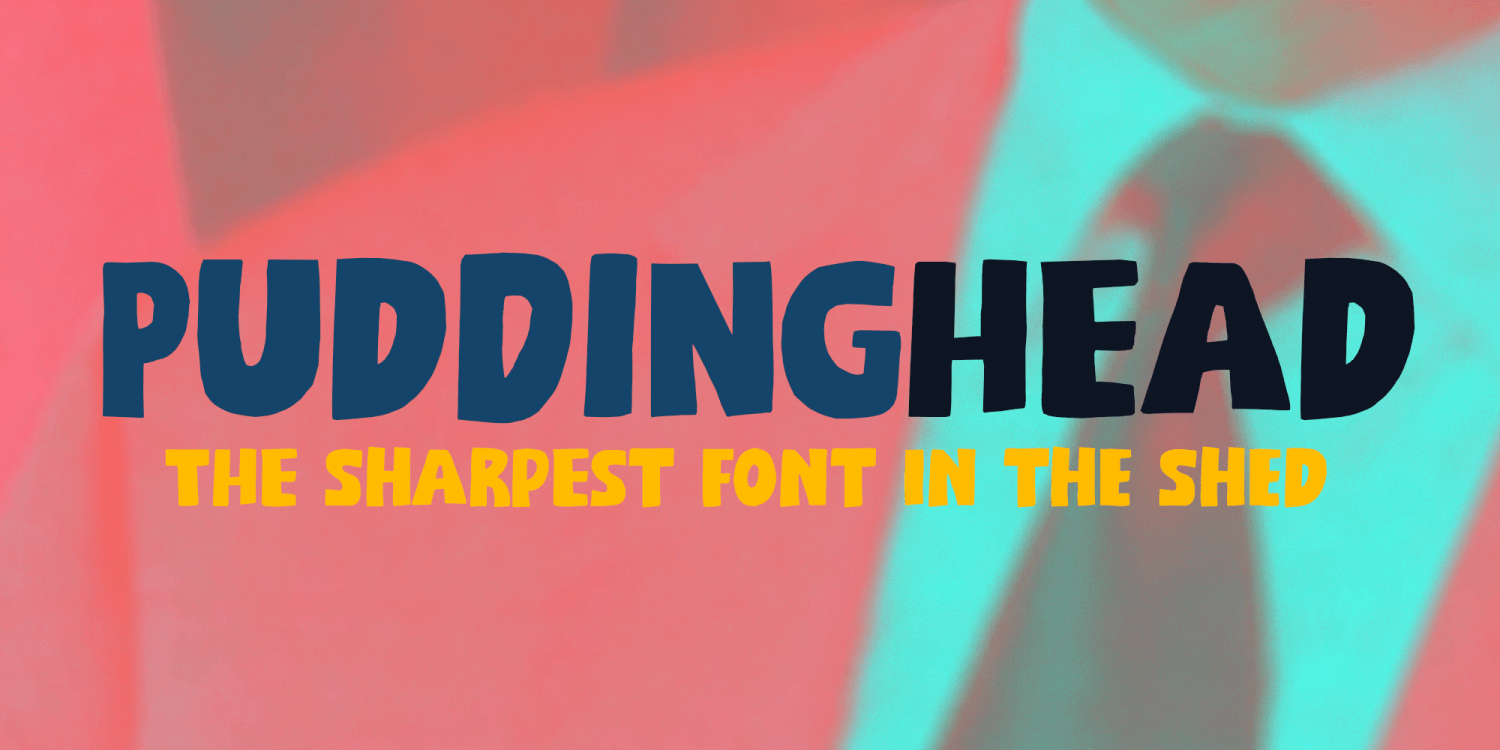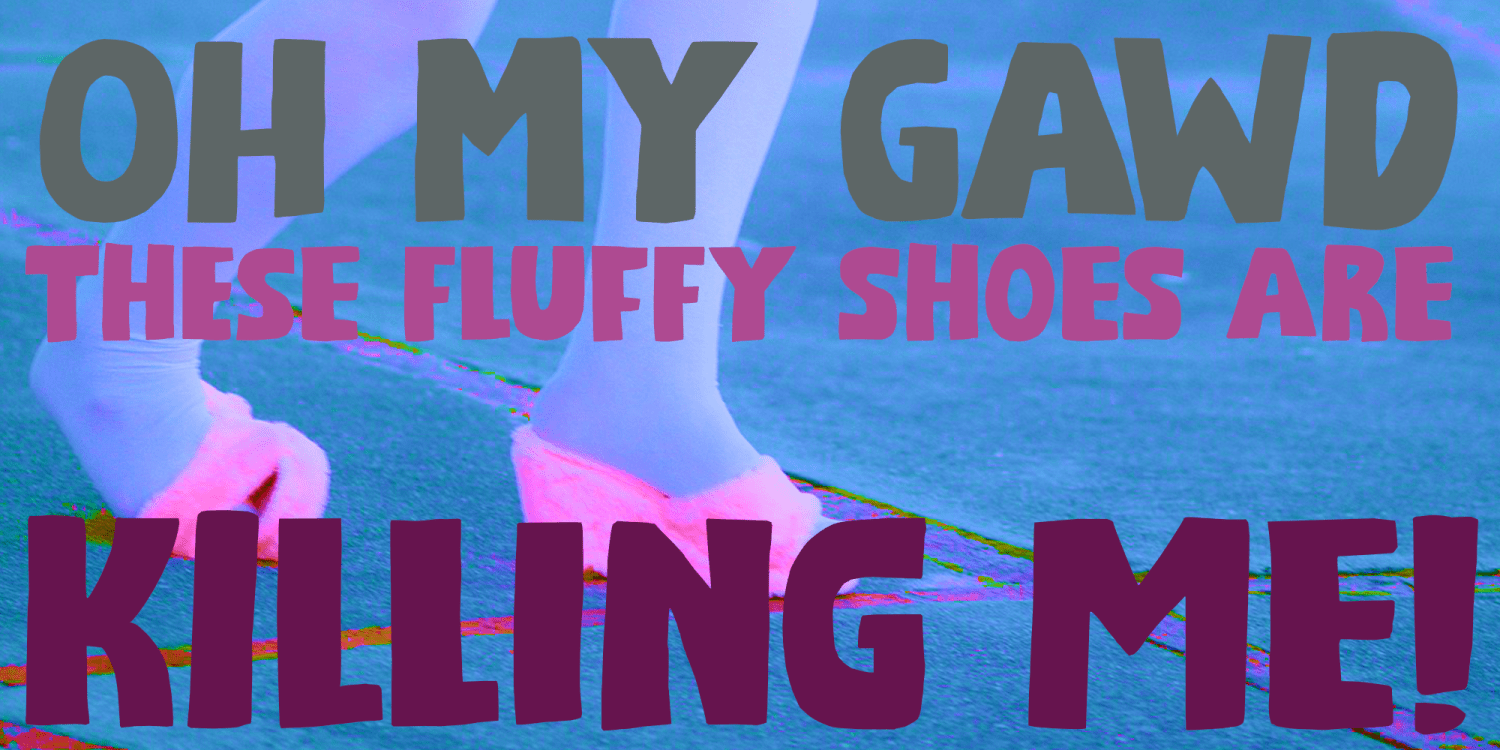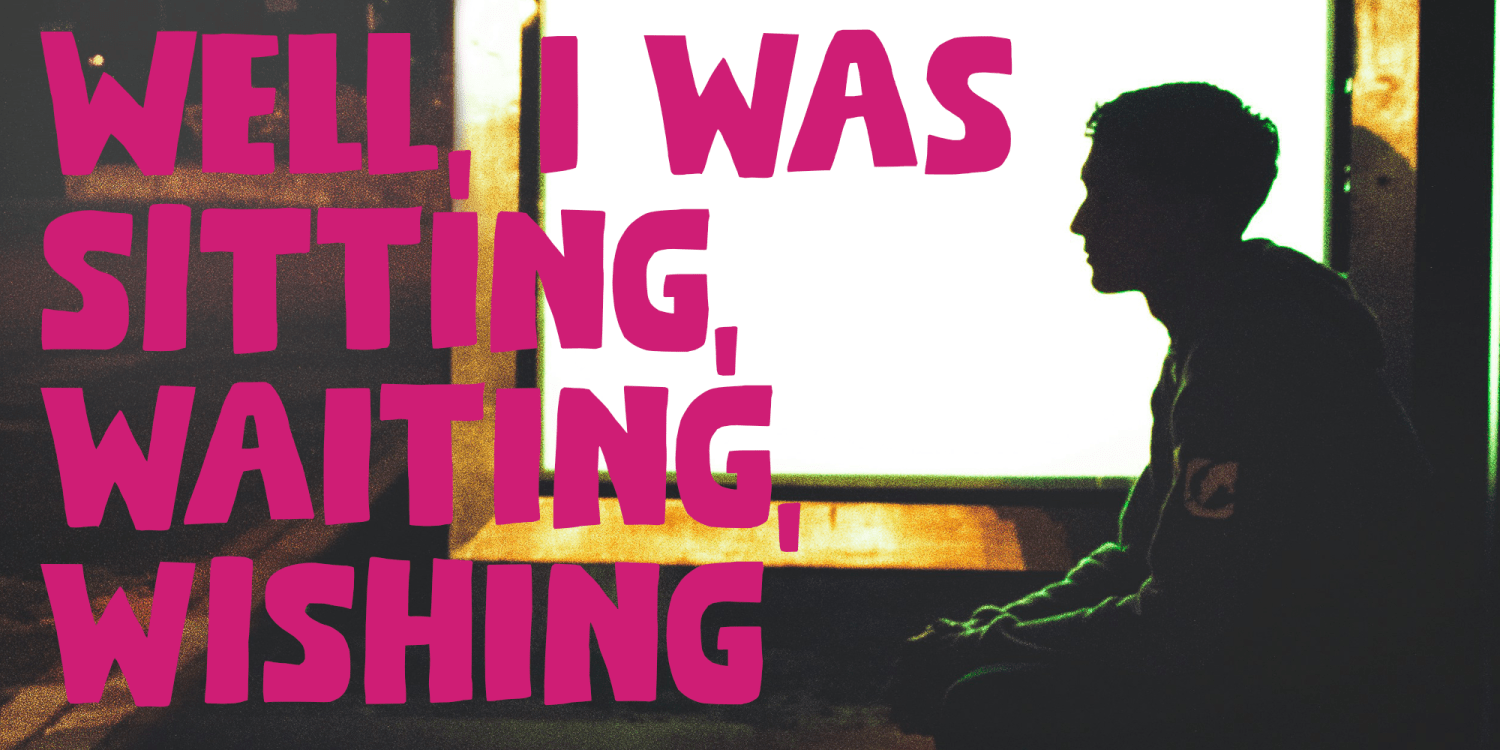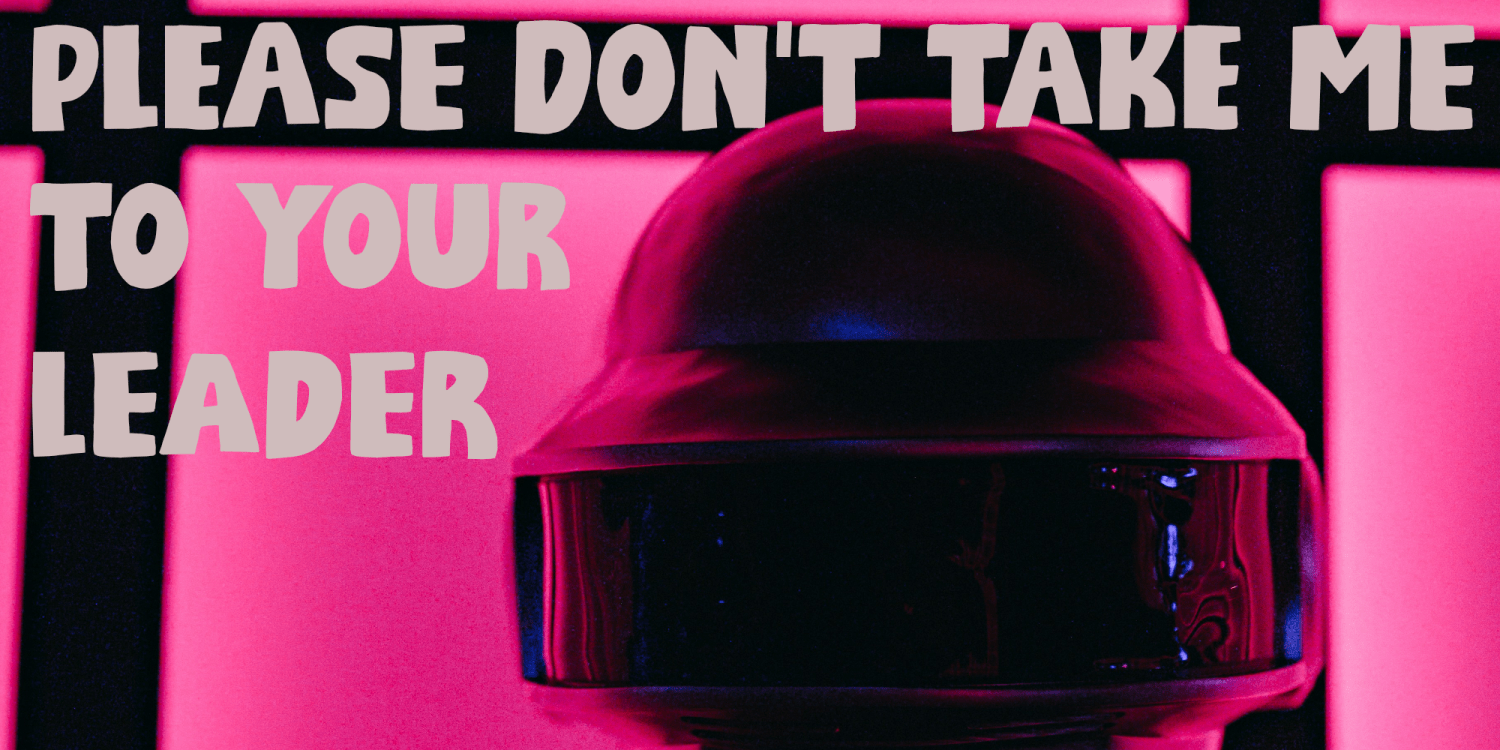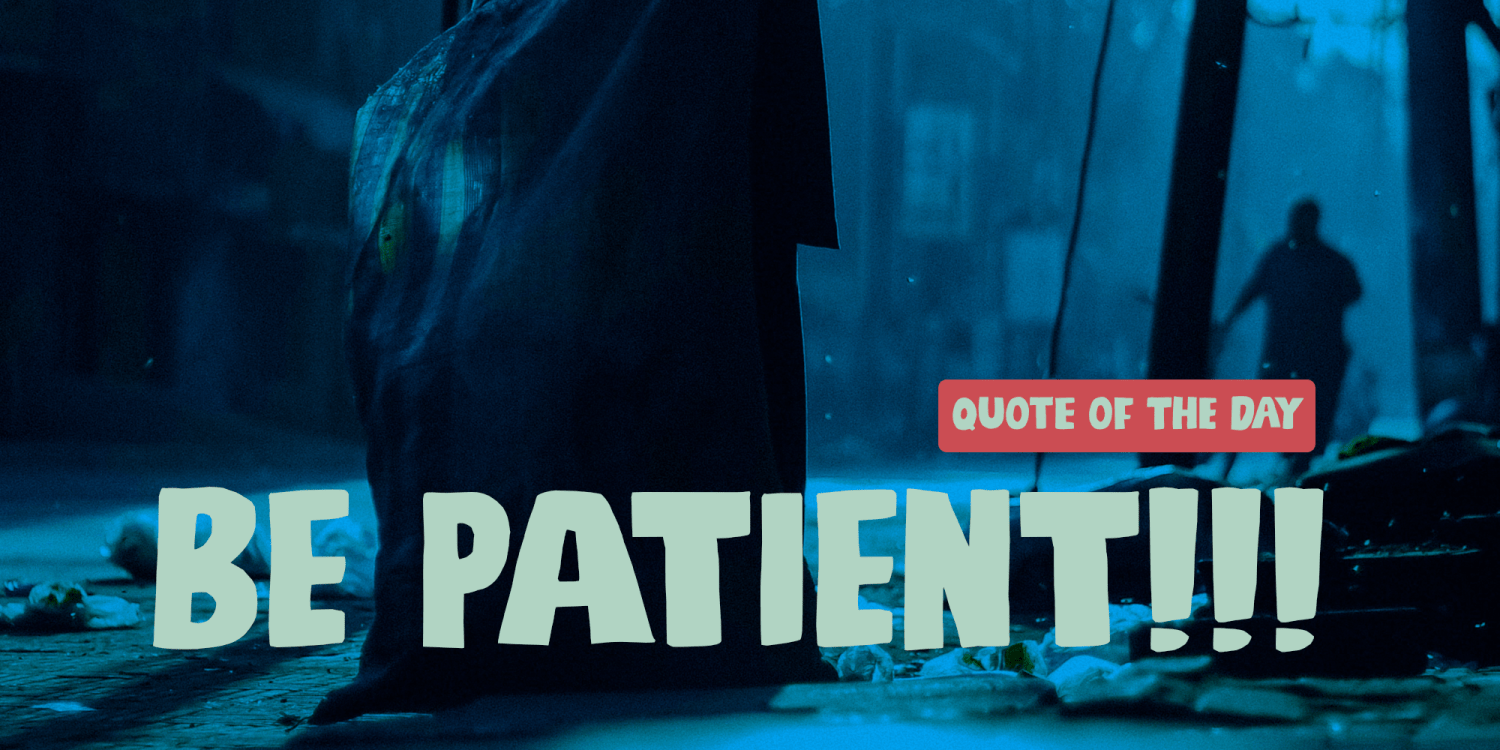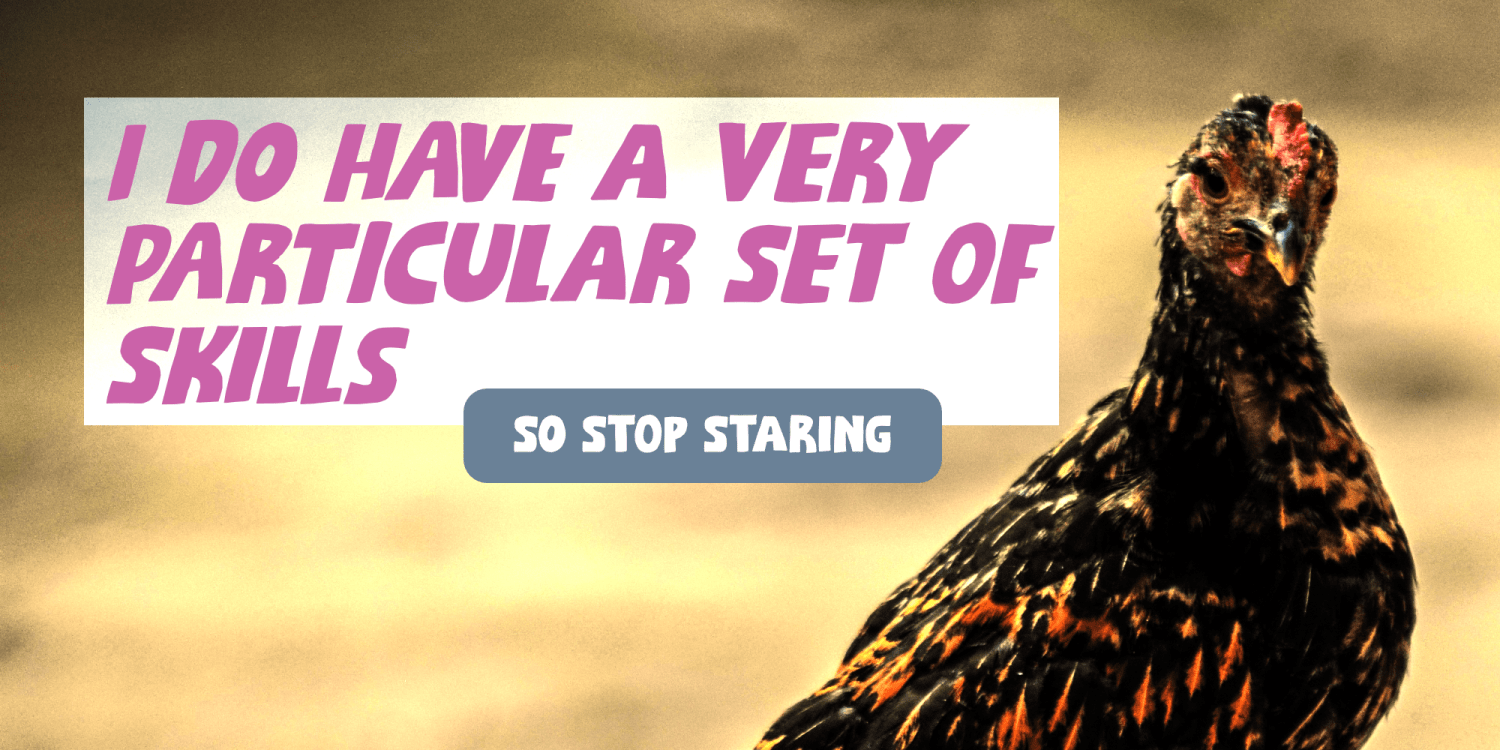
Puddinghead
There seems to be an endless supply of puddingheads these days! It’s almost like people enjoy being one!
Puddinghead is a goofy, handmade font. What it lacks in sophistication and class, it makes up in bravoure and boldness. Puddinghead is the go-to font for in-your-face ads, loud headlines and ‘get off my land’ signs. And anything in between of course! ;-)